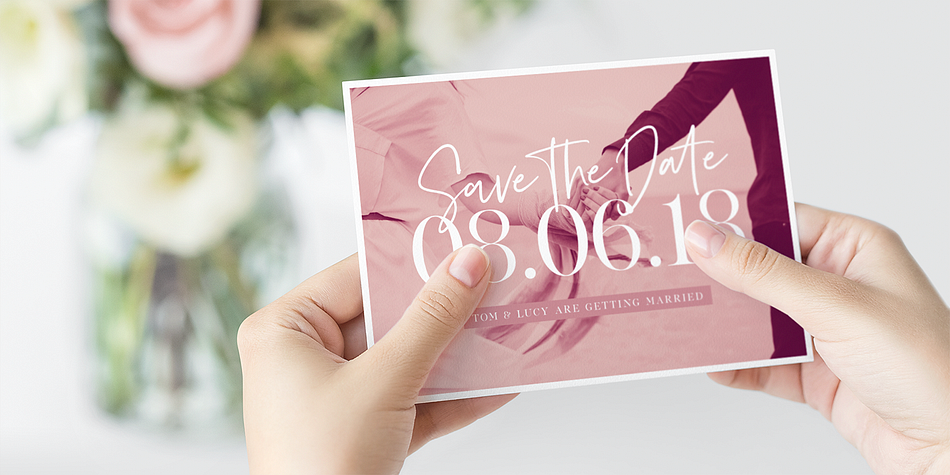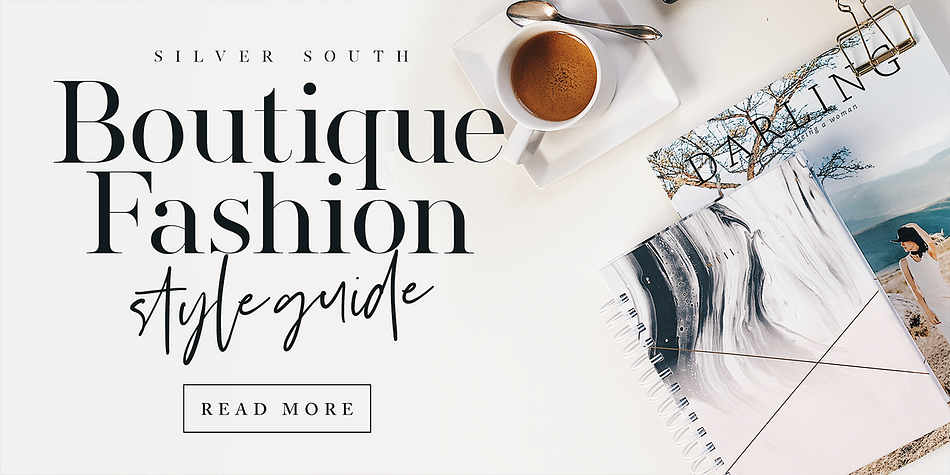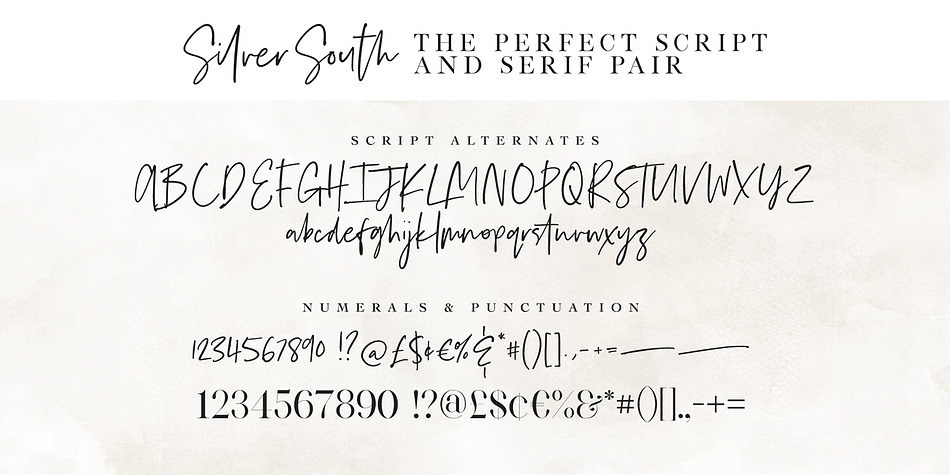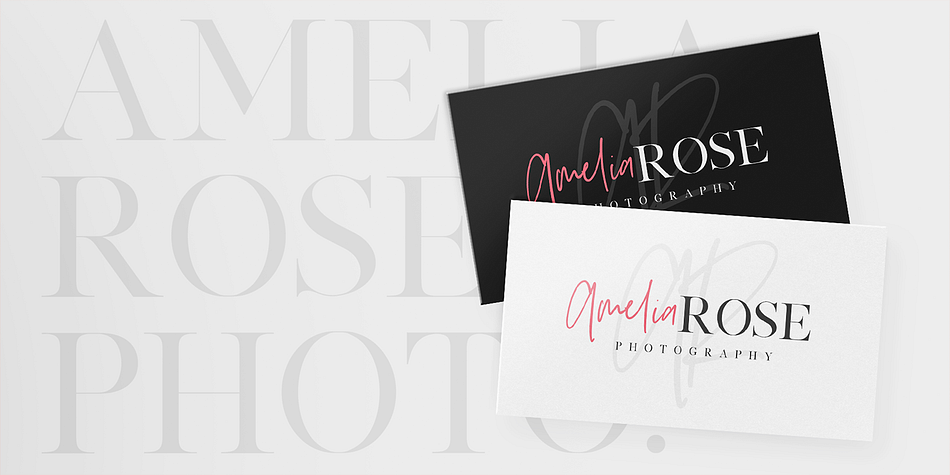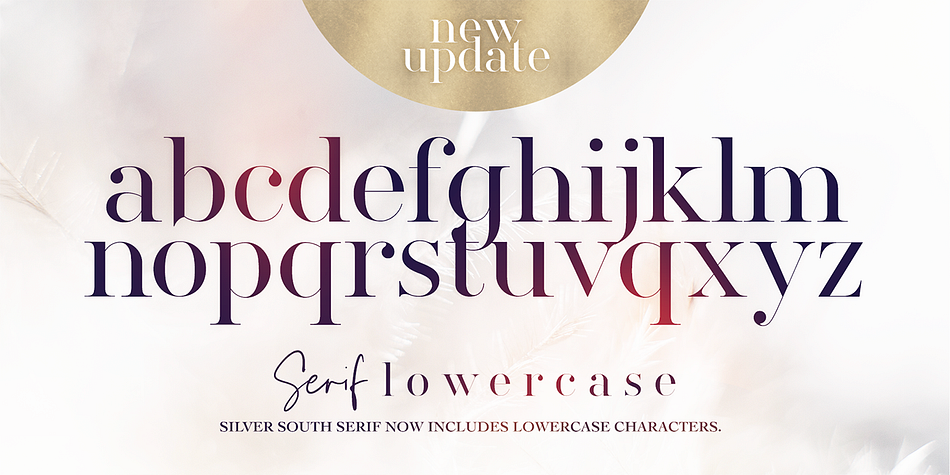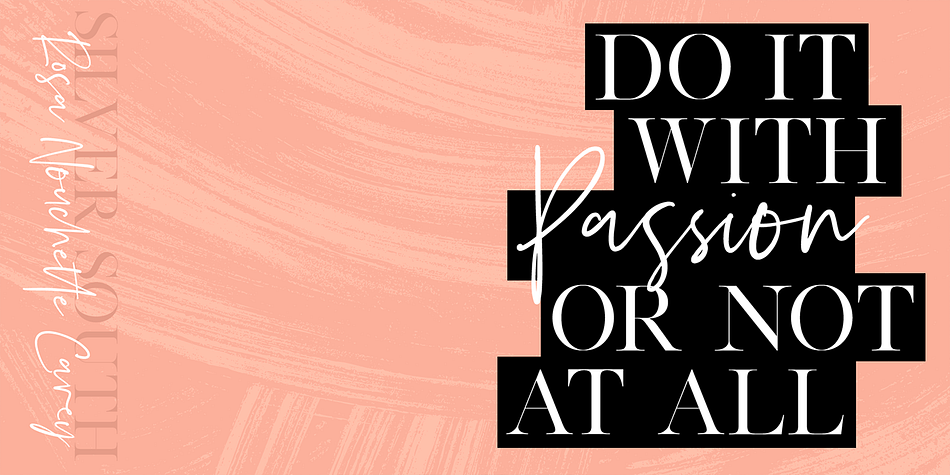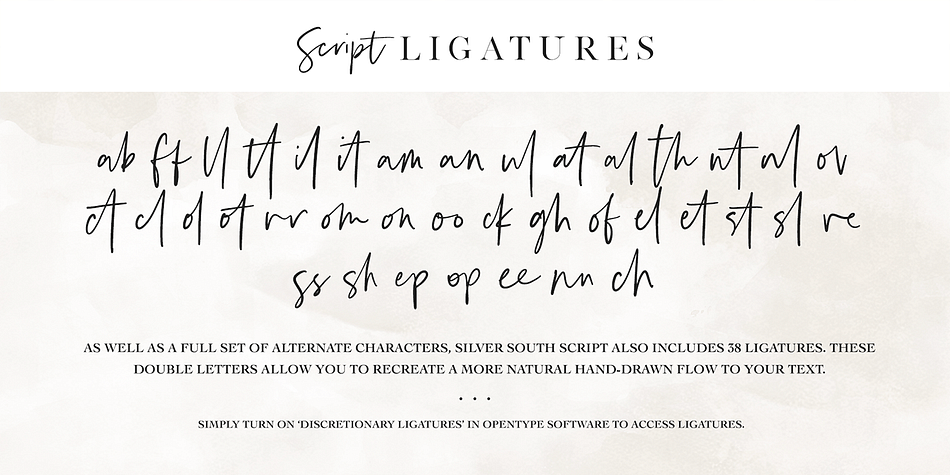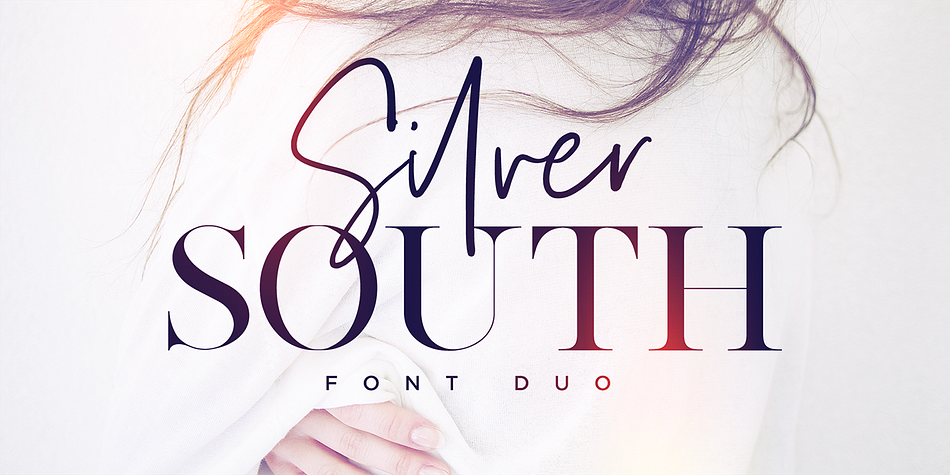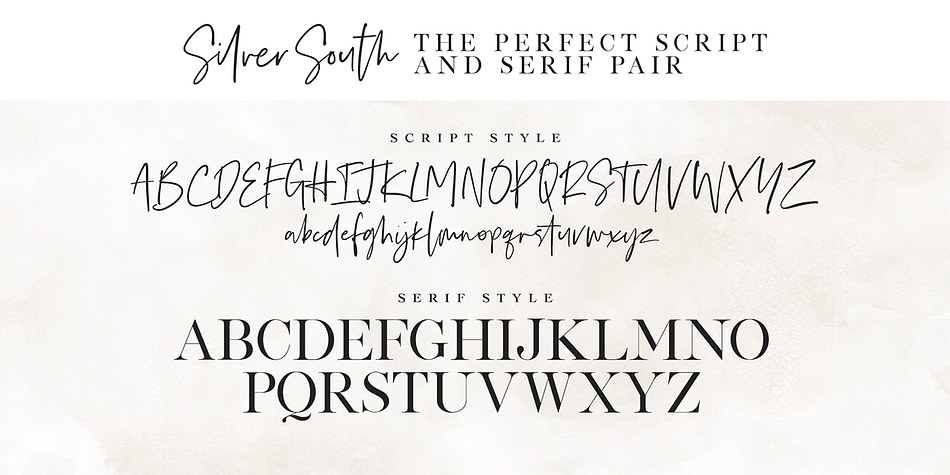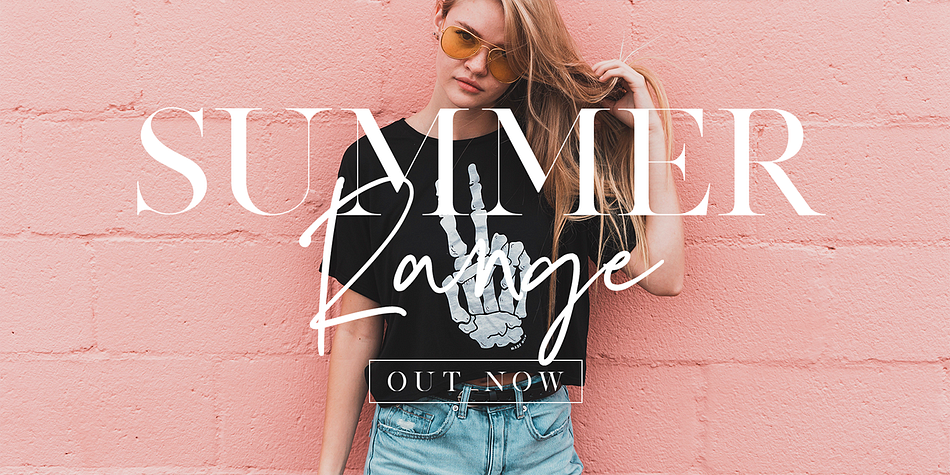
Designed by Sam Parrett, Silver South is a modern calligraphy, script and serif font family. This typeface has three styles and was published by Set Sail Studios.
Introducing the Silver South Font Duo, a classy, contemporary pair of script and serif fonts. With a stylish didot-style serif font and a free-flowing, expressive script companion, Silver South offers beautiful typographic harmony for a diversity of design projects, including logos & branding, wedding designs, social media posts, advertisements & product designs.
Silver South Serif • A classy serif font containing upper & lowercase characters, numerals and a large range of punctuation. Creates a perfect pairing contrast with the Silver South Script fonts.
Silver South Script • A clean, free-flowing script font containing upper & lowercase characters, numerals and a large range of punctuation.
Silver South Script Alt • This is a second version of Silver South Script, with a completely new set of upper & lowercase characters. If you wanted to avoid letters looking the same each time to recreate a custom-made style, or try a different word shape, simply switch to this font for an additional layout option.
Script Ligatures • Silver South Script also includes 38 character ligatures. These double letters allow you to recreate a more natural, hand-drawn flow to your text.